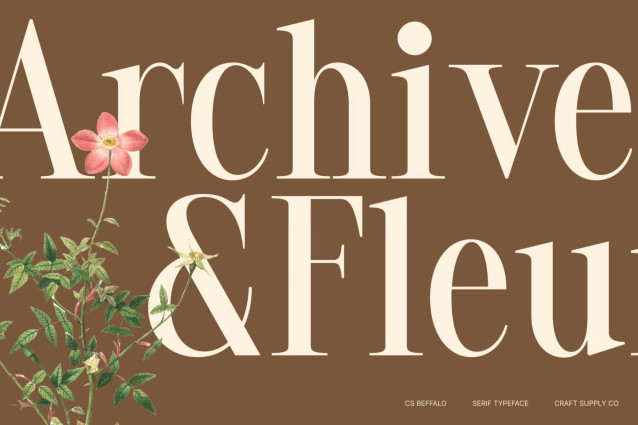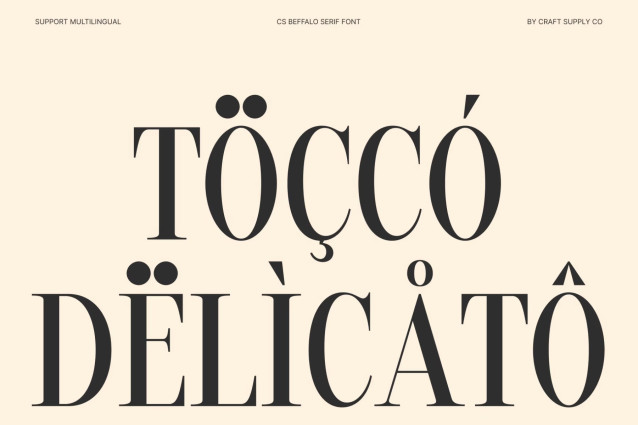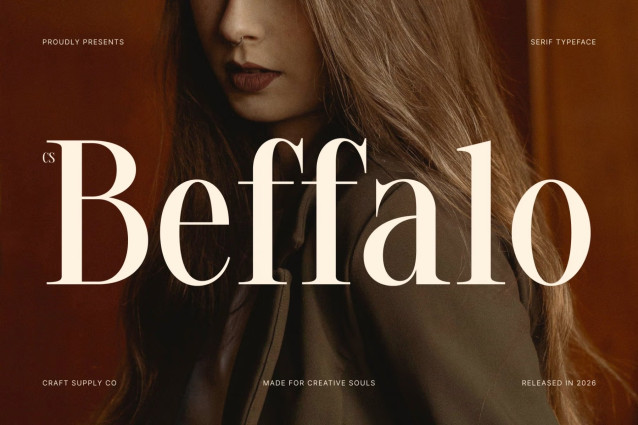
CS Beffalo – Elegant Serif Font: Where Refined Curves Meet Timeless Luxury
Refined Curves with Graceful Elongated Details
This is an elegant serif font distinguished by its refined curves and elongated details, creating a luxurious visual identity that feels graceful, polished, and timeless. Its carefully crafted letterforms blend delicate elegance with balanced proportions, resulting in typography that exudes sophistication while maintaining exceptional readability.
Contemporary Elegance with Classic Inspiration
Combining the beauty of traditional serif typography with a clean contemporary structure, this font offers a fresh yet timeless aesthetic. Its elongated details introduce a graceful rhythm and visual refinement, while its smooth curves soften the overall appearance, creating a harmonious balance between classic charm and modern minimalism.